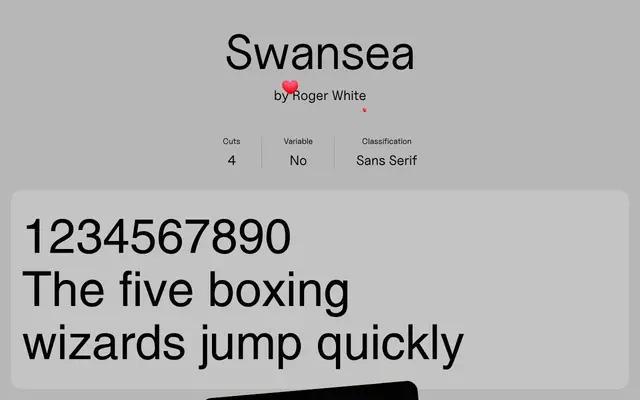
Swansea
A four-cut public domain sans-serif by Roger White, freely available for commercial and personal use.
A public domain grotesque sans-serif by Roger White, offered in four cuts with no licensing restrictions for commercial or personal projects. The font permits modification and redistribution, making it a practical choice for projects where open licensing is a requirement. Its straightforward classification as a sans-serif places it among the many utility grotesques available for unrestricted use.
Classified as Sans Serif on the page; the name and public domain status suggest a classic grotesque lineage, likely derived from or inspired by mid-century European grotesques.